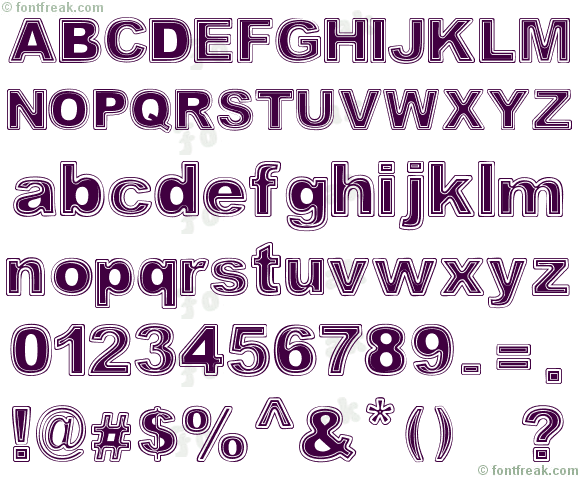
SUPERMARKET
The SUPERMARKET font by woodcutter Manero is a striking display typeface that captures attention with its unique design. This font features a bold stroke weight, creating an impactful visual presence. The contrast between the thick and thin lines adds a dynamic quality, while the well-balanced spacing ensures legibility, making it ideal for various applications. Decorative elements, such as the subtle outlines and playful proportions, contribute to its modern yet approachable aesthetic.
The versatility of the SUPERMARKET font makes it suitable for a range of creative projects. It excels in crafting eye-catching restaurant menus, where its bold characters can draw diners' attention to specials or featured items. Additionally, this typeface is perfect for vibrant movie posters, giving titles a sense of urgency and excitement. Graphic designers will find it an excellent choice for promotional materials, such as flyers or banners, where the goal is to create a memorable impression. Moreover, the font’s playful nature lends itself well to branding for small businesses, particularly in the food and retail sectors, where a welcoming vibe is essential.
What sets the SUPERMARKET font apart is its blend of boldness and charm, making it a standout choice in an ocean of typefaces. Whether for digital or print media, this font brings a distinctive flair that elevates any project, ensuring it captures and holds the audience's attention. For those interested in experimenting with this eye-catching typeface, a SUPERMARKET font free download is readily available, opening the door to endless creative possibilities.